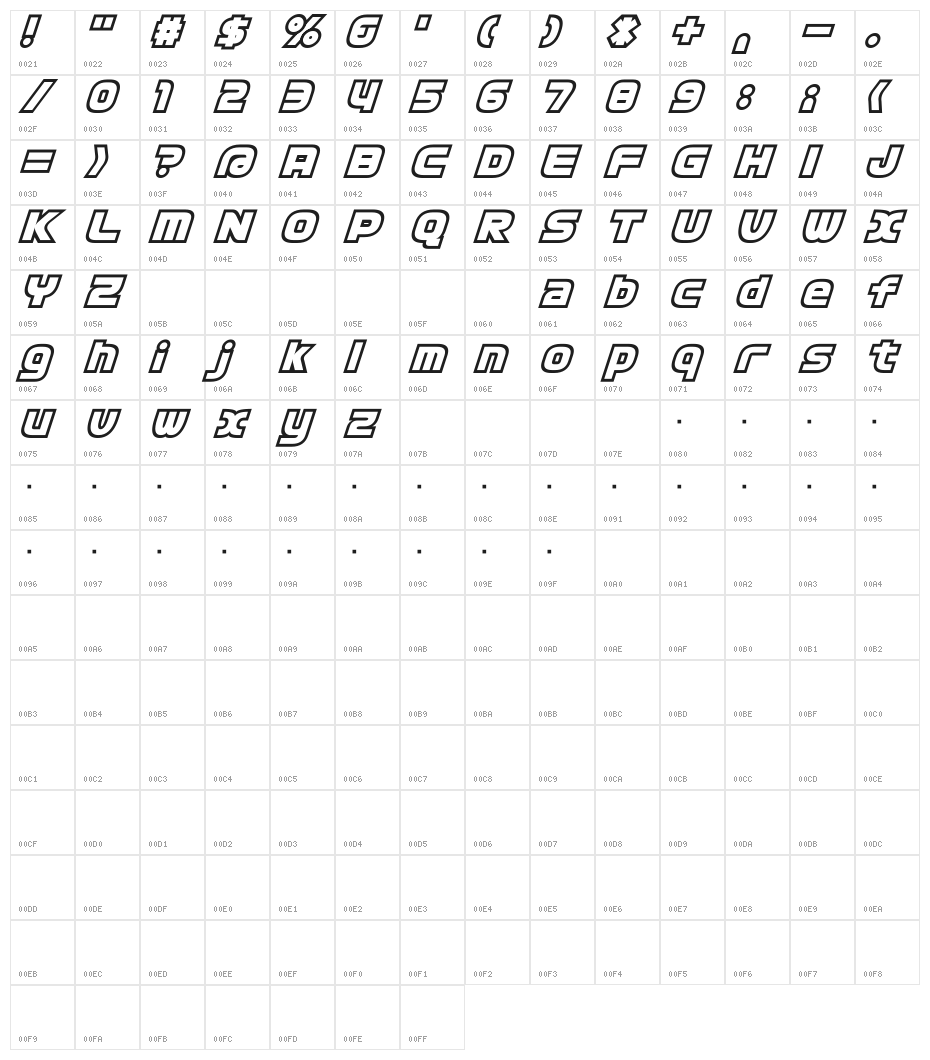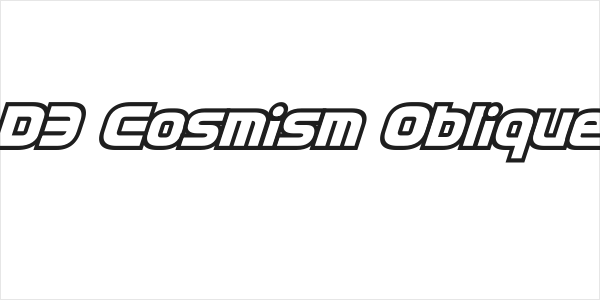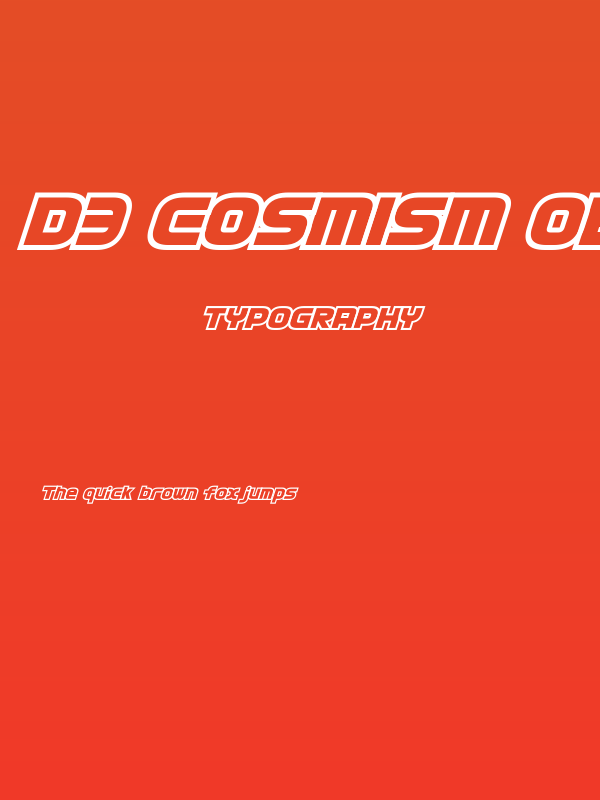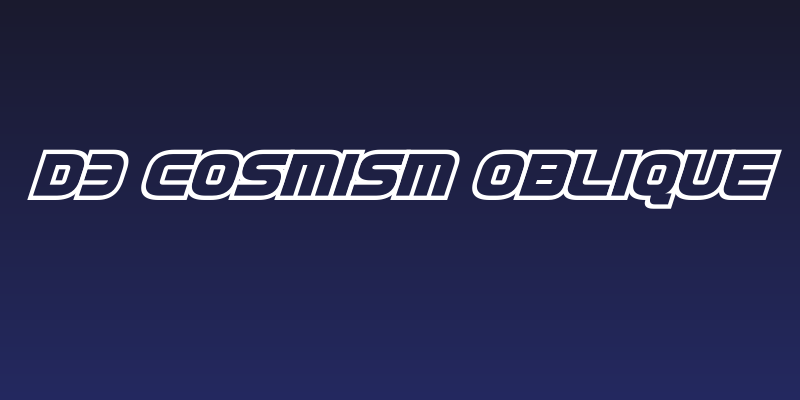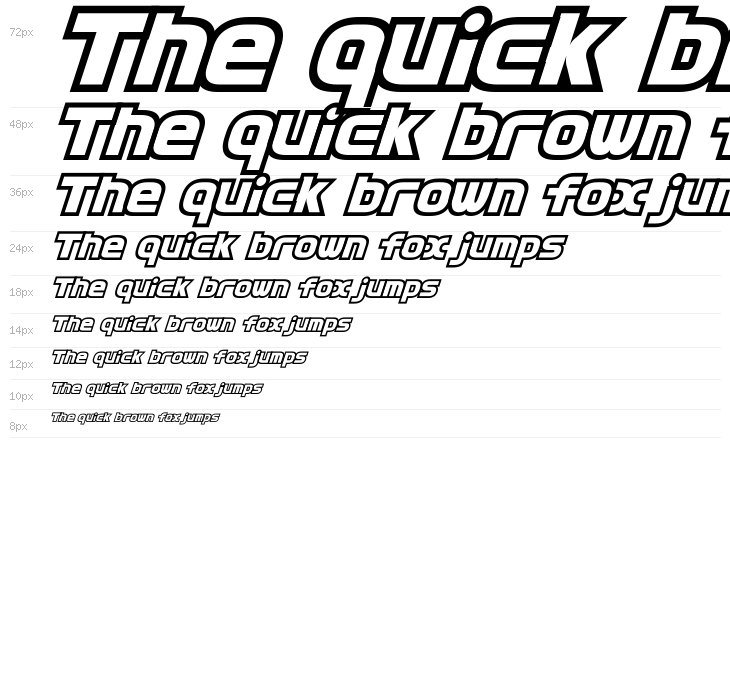
D3 Cosmism Oblique Font
D3 Cosmism Oblique Description
This font features a bold, futuristic design with a distinct oblique slant, giving it a dynamic and forward-moving appearance. The characters are outlined, creating a striking contrast between the inner and outer spaces. Each letter and number is crafted with sharp angles and clean lines, emphasizing a modern and technological aesthetic. The uppercase and lowercase letters maintain consistency in style, while the numerals and special characters complement the overall design. This font is ideal for projects that require a strong, impactful visual presence.
| Overall Style | Futuristic, Modern |
| Proposed Projects | Ideal for technology branding, sci-fi posters, video game titles, and modern advertising. |